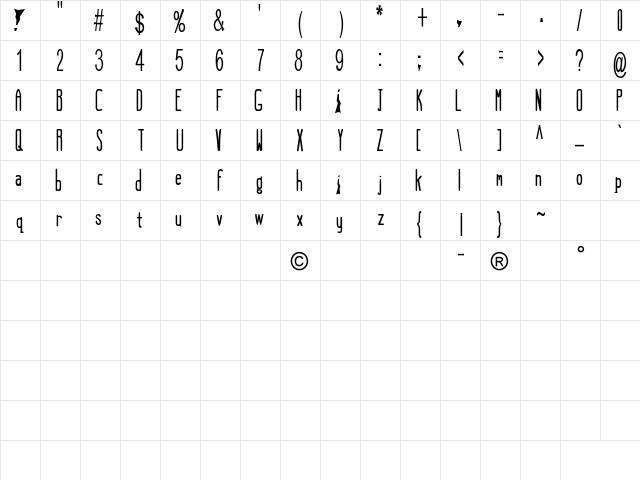
Furocious TALL&Narrow Regular
Design Context for Furocious TALL&Narrow Typeface
Furocious TALL&Narrow takes a measured approach to typography — its balanced proportions and neutral character make it a reliable workhorse for both digital and print work. Its narrow stance lets it pack a punch even in space-constrained designs.